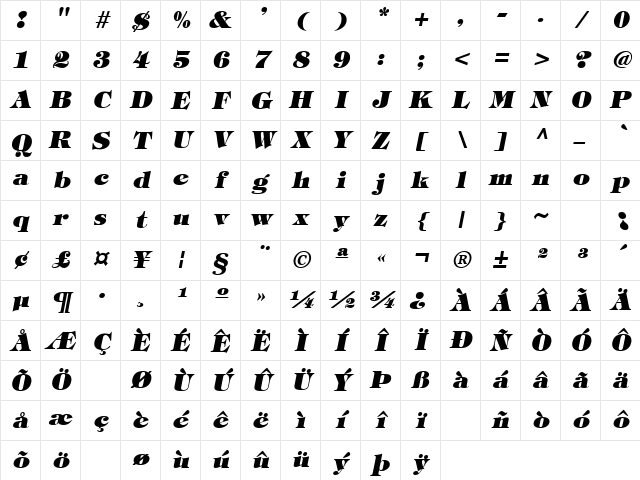
TiffBlack is a composed and adaptable typeface that performs quietly and consistently across a wide range of design contexts. The slanted form adds forward momentum and visual energy.